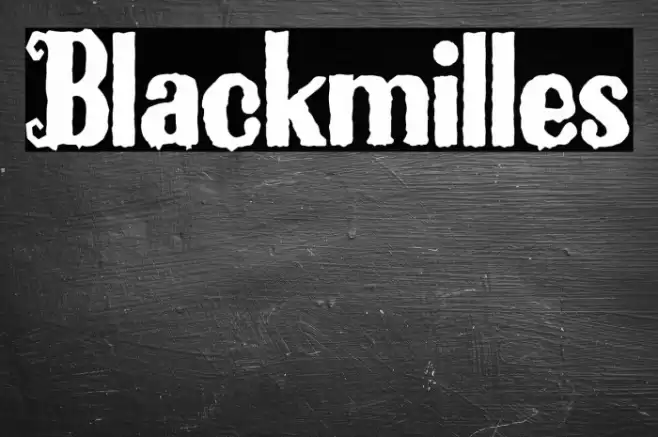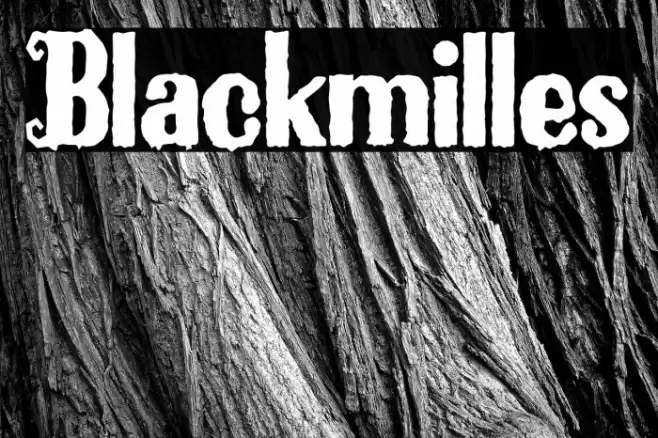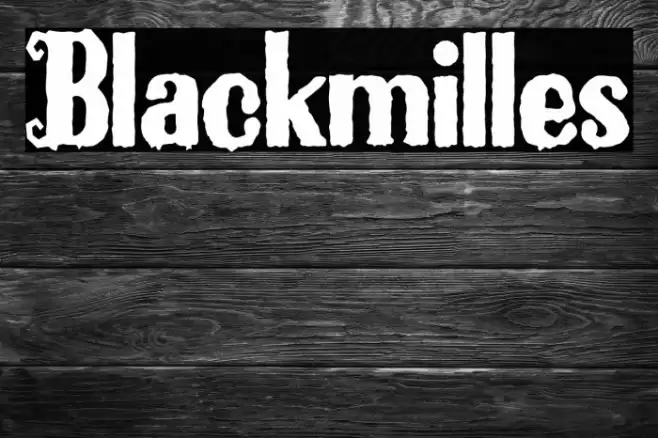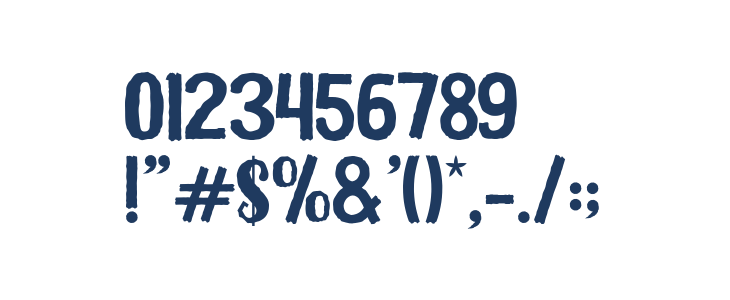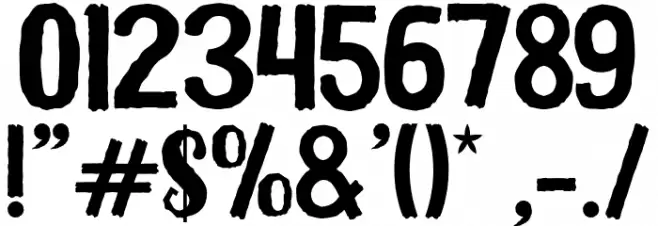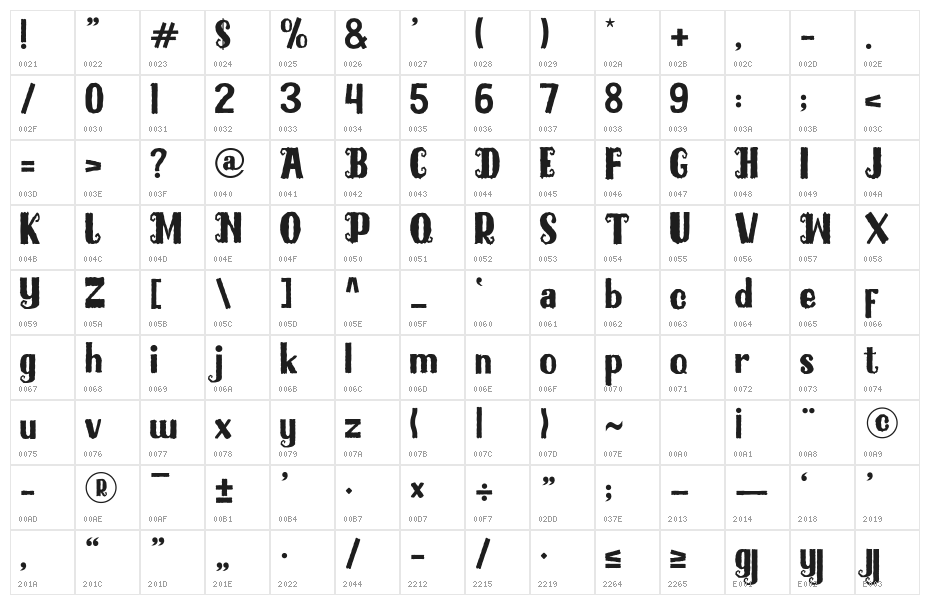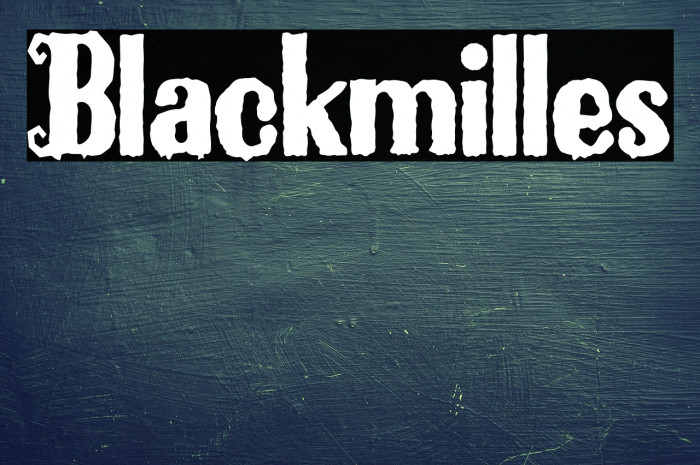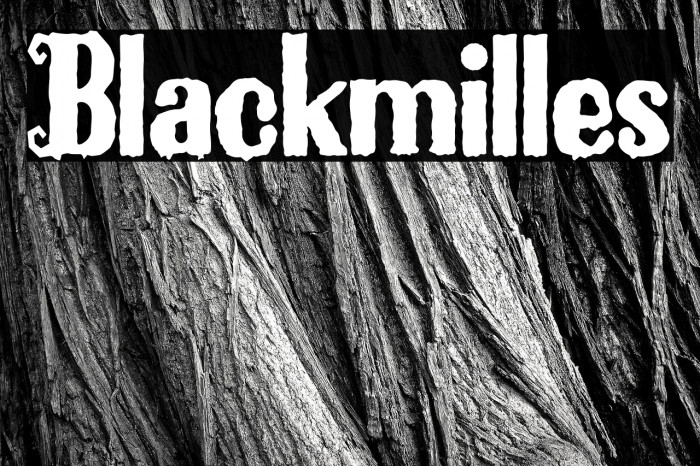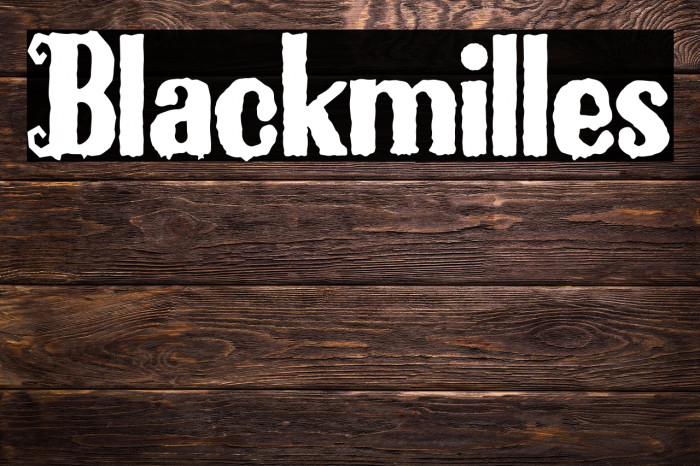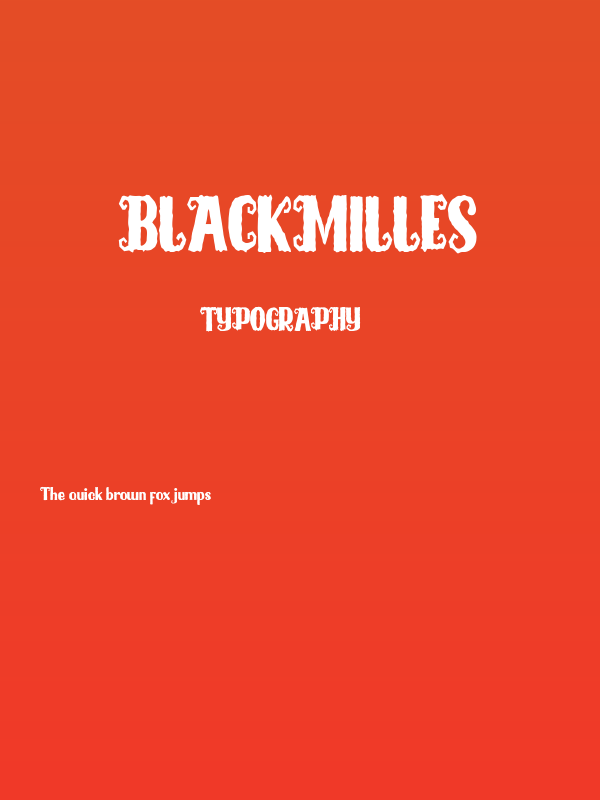
Blackmilles Font
Blackmilles Description
This font features a bold and decorative style with unique, swirling embellishments on certain characters, giving it a distinct and artistic appearance. The uppercase letters are particularly striking, with intricate curls and flourishes that add a touch of elegance and whimsy. The lowercase letters maintain a consistent style, complementing the uppercase with a slightly more subdued flair. The numerals are bold and clear, ensuring readability while maintaining the decorative theme. Special characters are designed with the same attention to detail, making them stand out. This font is perfect for projects that require a creative and eye-catching typeface.
A bold, decorative font with swirling embellishments and artistic flair from Uncategorized fonts.